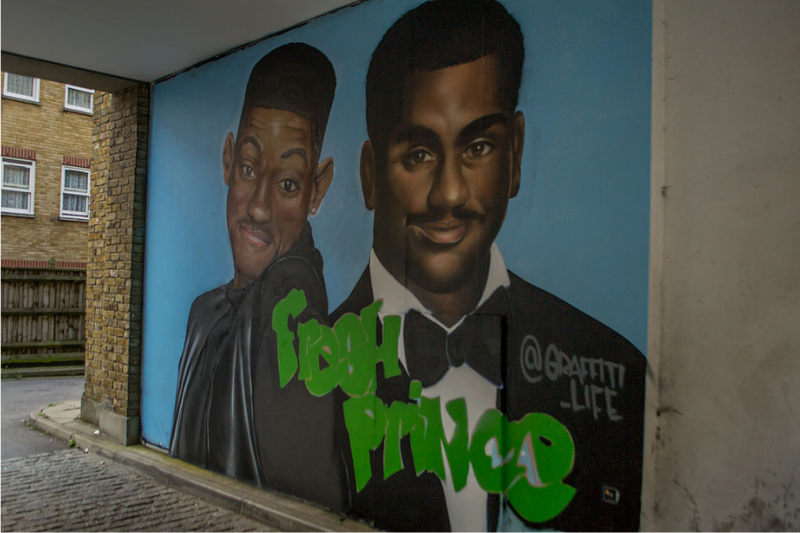
Fresh Prince of Bel Air Font Generator
About the Fresh Prince of Bel Air Font Generator
The Fresh Prince of Bel-Air is a 90s pop-culture touchstone β€” bright, bold, streetwear-inflected typography with an unmistakable West Philadelphia attitude. The show's logo and title card styling capture the era's confident, colorful graphic design perfectly, making it a favorite reference point for nostalgia-driven creative work.